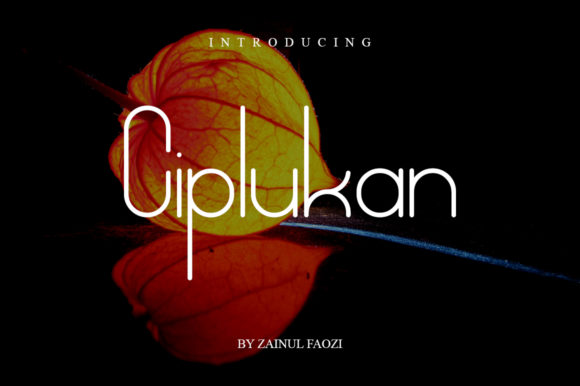
Ciplukan Font
Introducing Ciplukan, a meticulously crafted sans serif font that radiates a contemporary charm. Its clean lines and modern aesthetics bring a touch of sophistication to any design.
Immerse yourself in a world of elegance and sophistication with Ciplukan. This captivating font family exudes a timeless appeal that complements a wide spectrum of projects, from sleek logos and headlines to captivating marketing materials and user interfaces.
Whether you're a seasoned designer seeking to elevate your creations or a budding enthusiast eager to explore the world of typography, Ciplukan caters to your every need. Its versatility grants you the freedom to experiment and express your individuality, while its intuitiveness ensures a seamless design experience.
With Ciplukan, the possibilities are limitless. This versatile font family adapts effortlessly to your creative vision, whether you seek a minimalist approach or an extravagant display. Its clean lines and elegant curves lend a refined touch to minimalist designs, while its bold variations add a touch of drama and flair to more exuberant projects.
Embrace the allure of Ciplukan, and unveil a world of design possibilities like never before. Its timeless appeal and effortless elegance will leave an indelible impression on your audience, elevating your projects to new heights of sophistication and style.
Don't just take our word for it, embark on a visual journey and witness the transformative power of Ciplukan. Explore our carefully curated gallery showcasing a diverse range of projects adorned with this remarkable font family. From captivating logos and headlines to captivating marketing materials and user interfaces, Ciplukan leaves no stone unturned in its quest for typographic excellence.
Join the growing community of designers, artists, and creatives who have embraced the allure of Ciplukan. Experience the seamless integration of form and function as you weave your design magic with this modern masterpiece.
Don't delay, embark on your typographic odyssey with Ciplukan today and elevate your creations to new heights of brilliance. The world of design awaits your exploration, and Ciplukan shall be your steadfast companion along this creative journey.